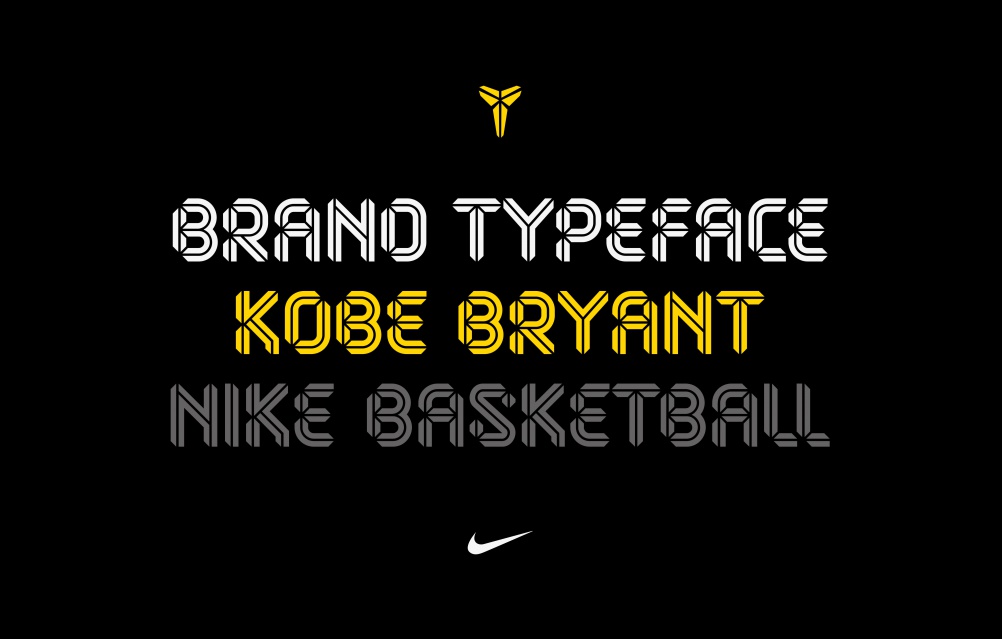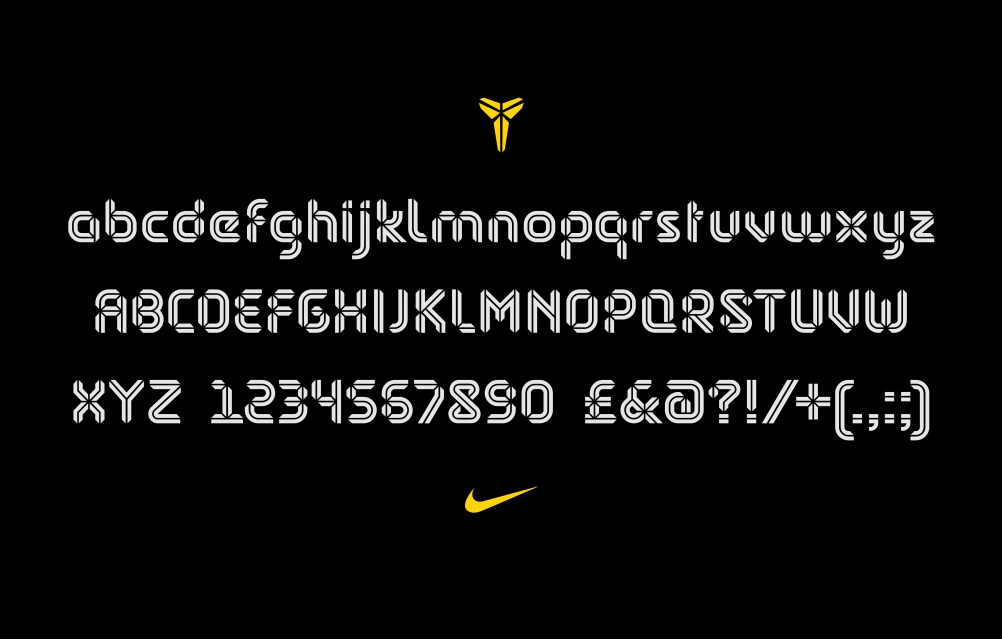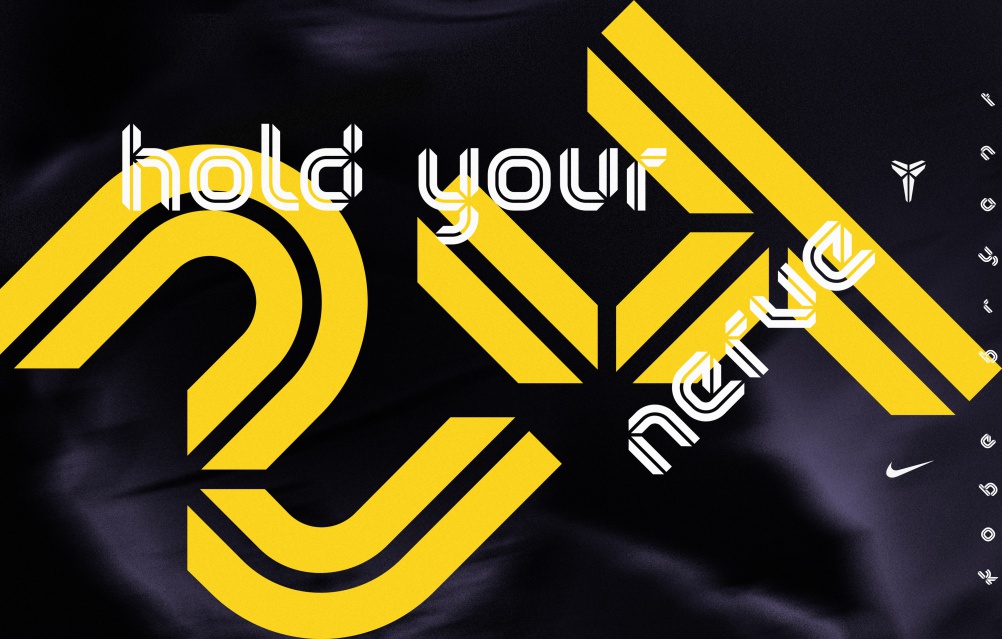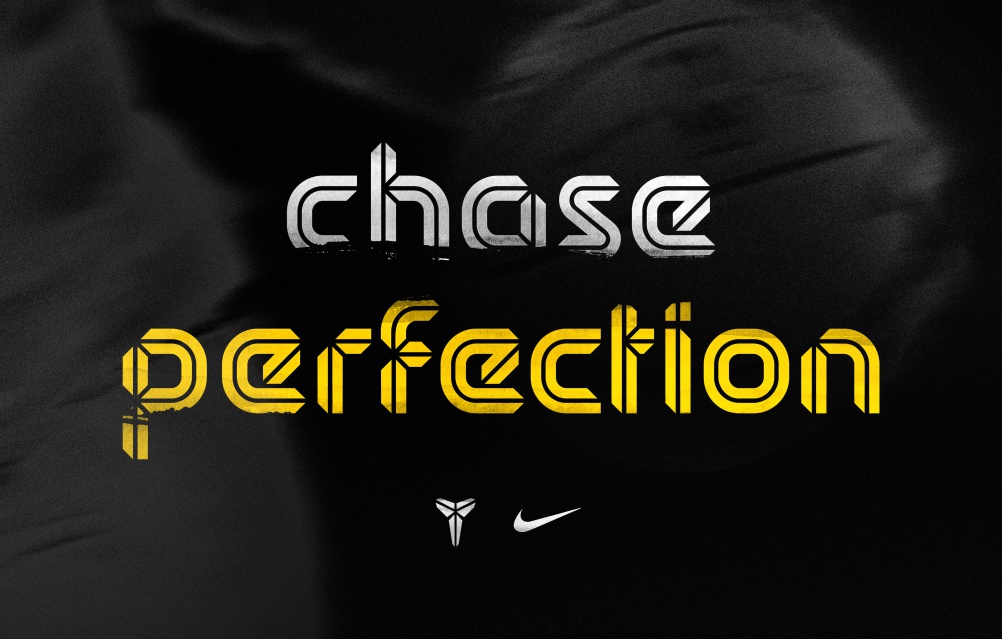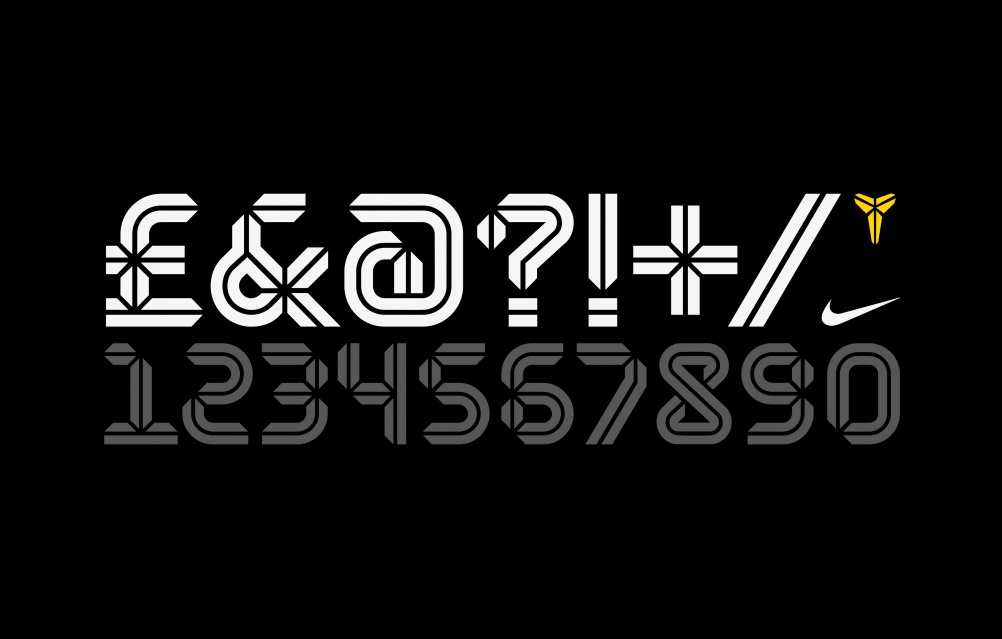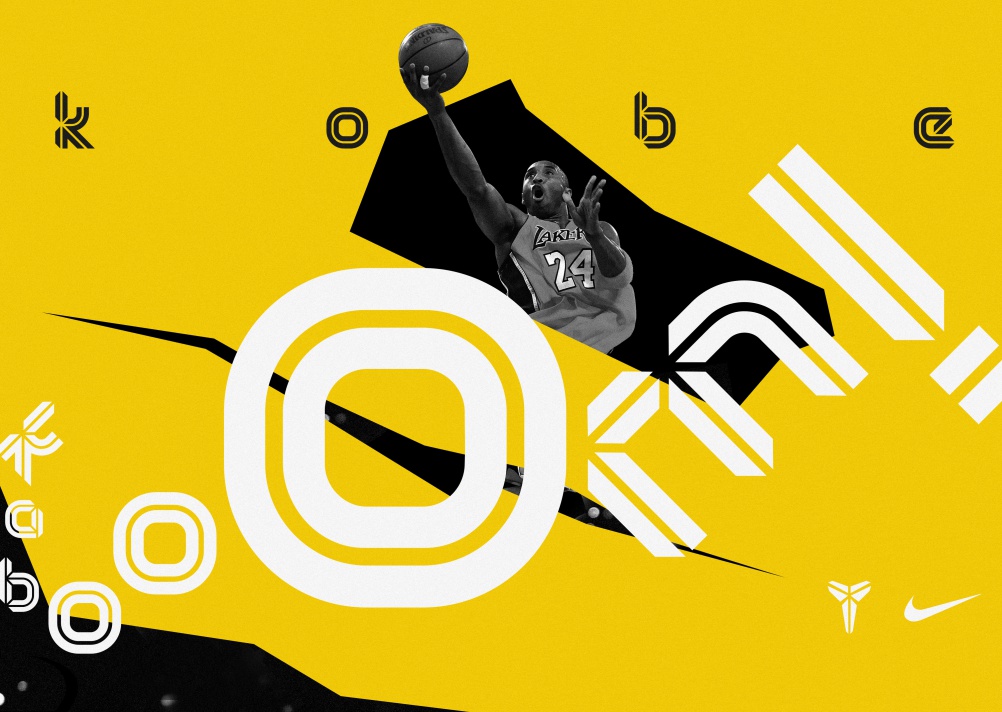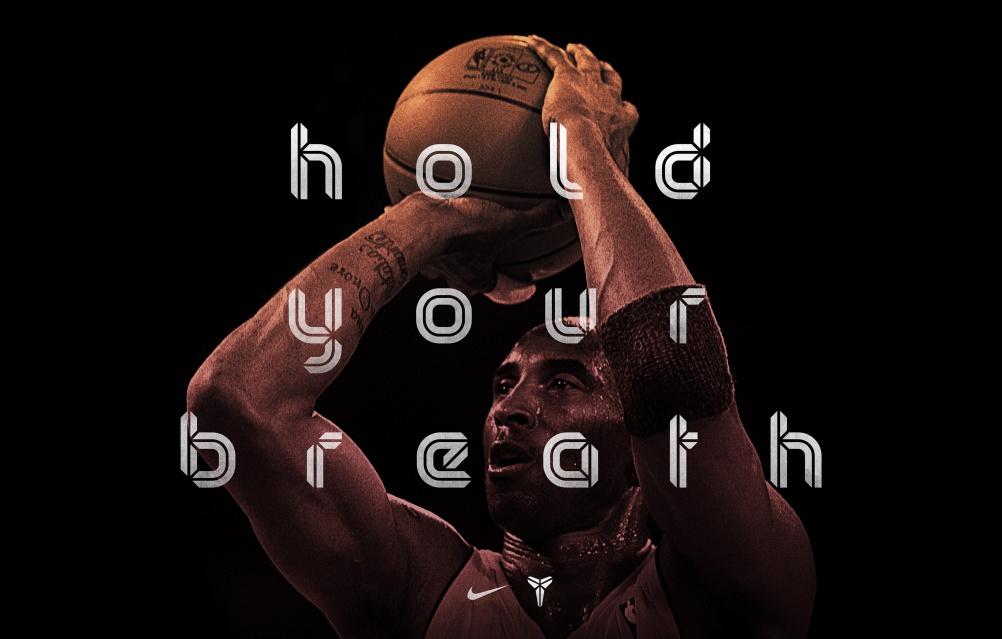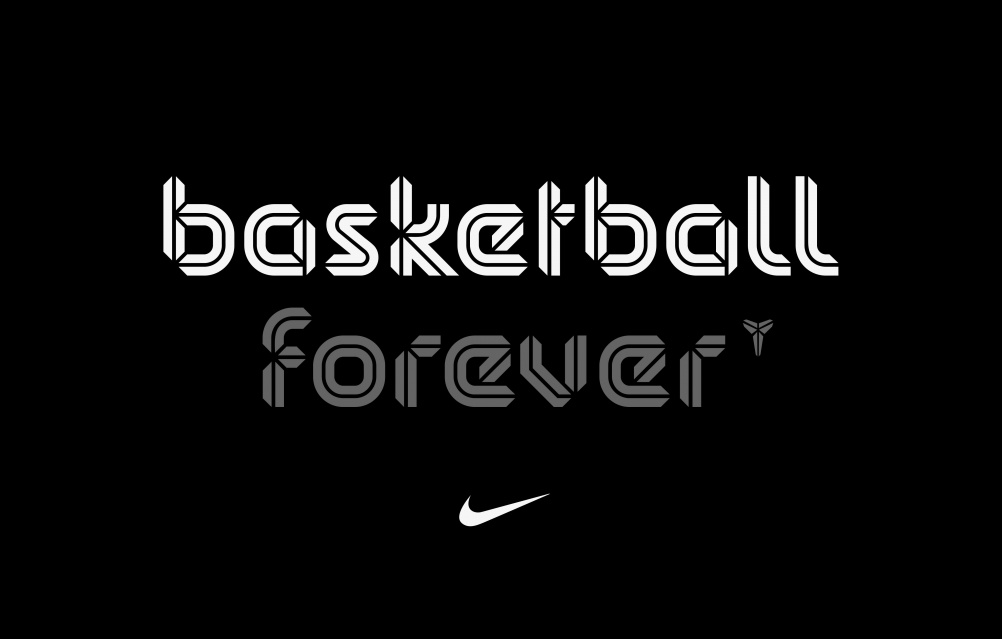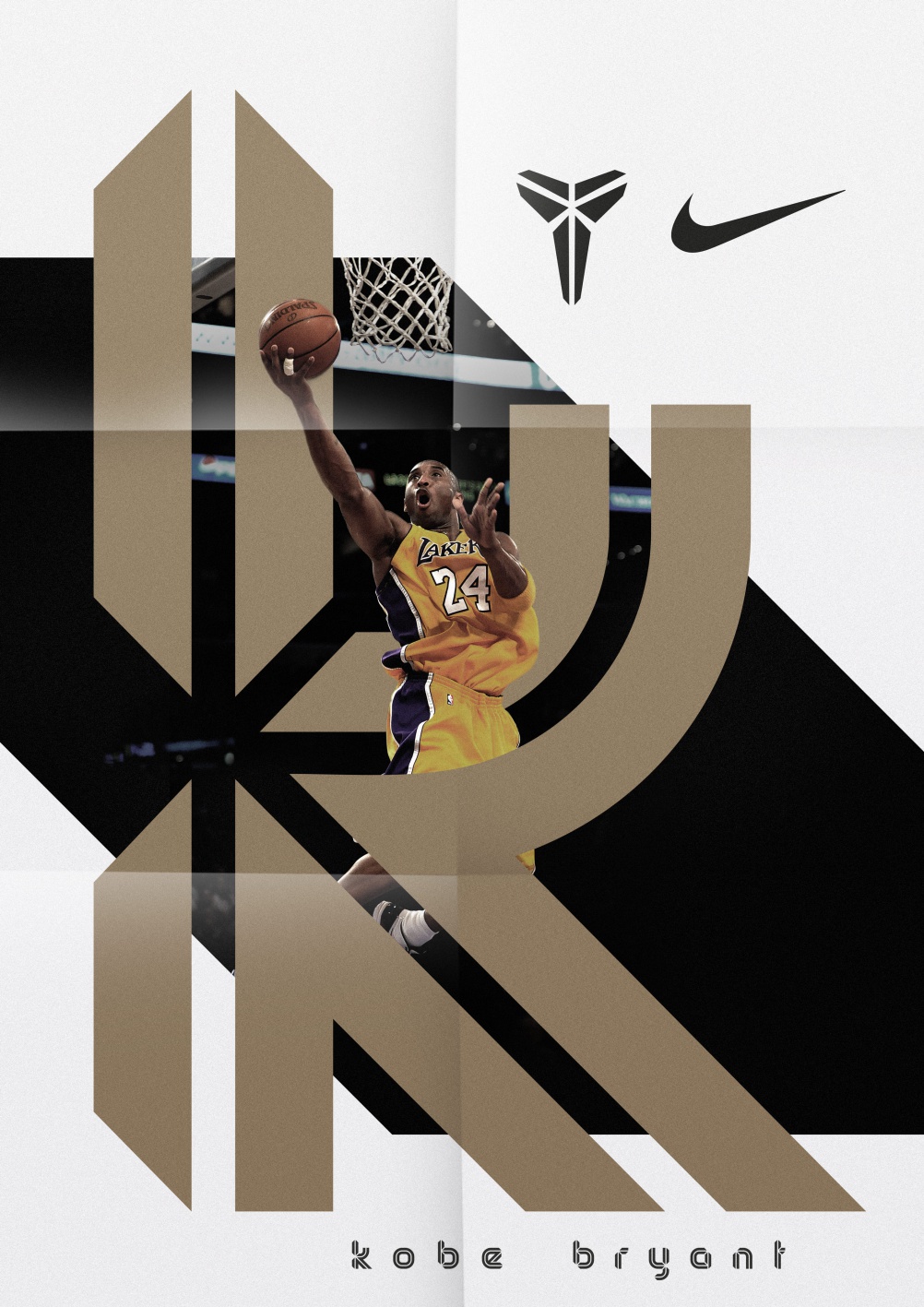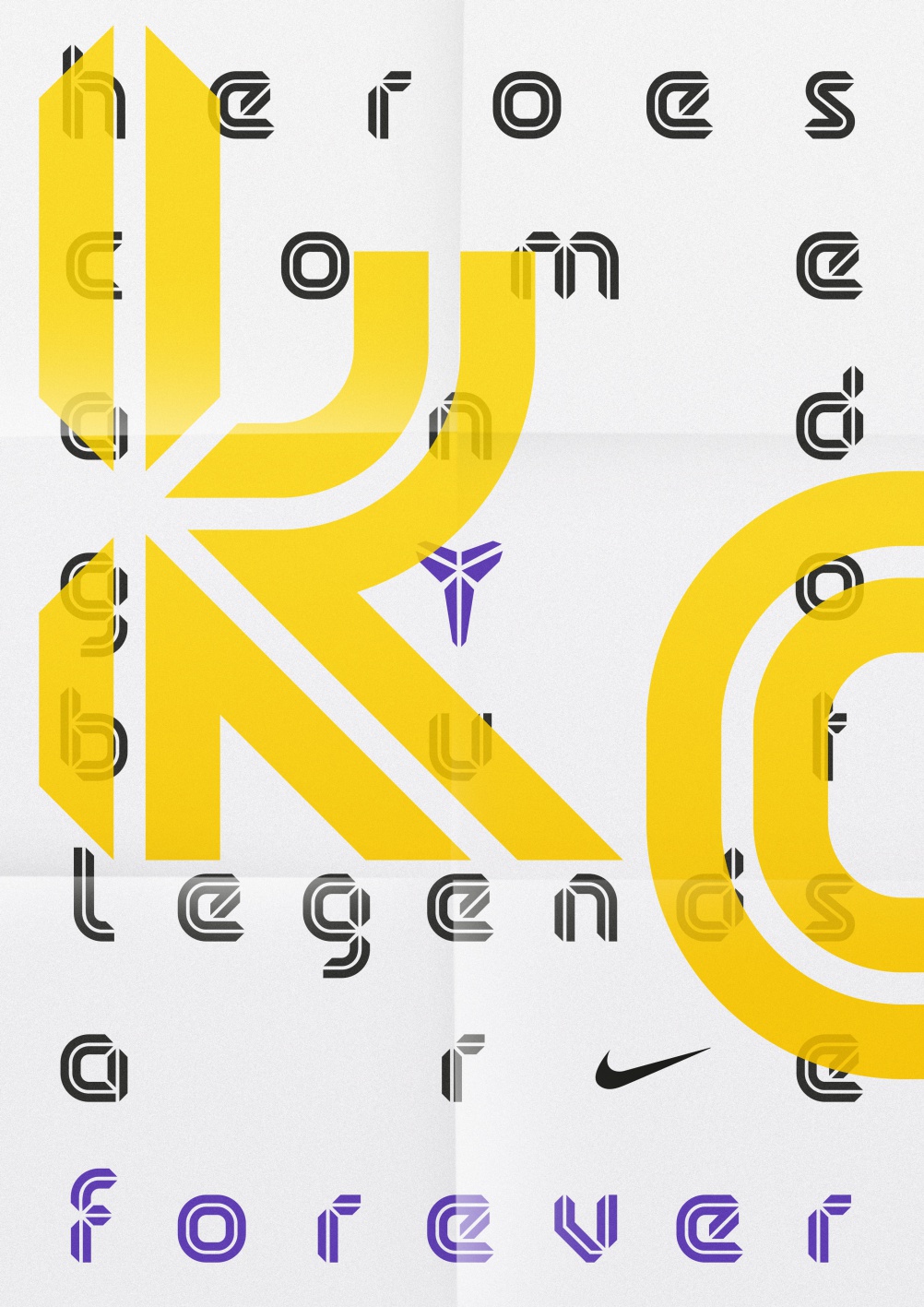
Kobe Bryant typeface, by Sawdust
Sawdust has created a bespoke typeface for basketball star Kobe Bryant, after being approached by Nike to develop the project.
Sawdust’s Rob Gonzalez says the consultancy was briefed to develop a typeface based on Bryant’s existing brand identity, that could be used by Nike across marketing material and merchandise.
Gonzalez says: “The design was inspired by the star-like negative space that is created in the central point of the logo mark, it creates movement and energy, which is something we tried to capture in the type design.”